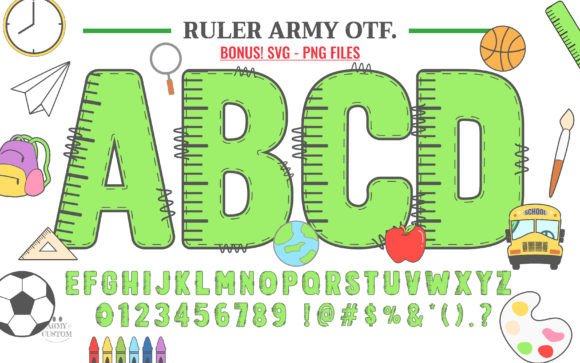
Ruler Army: The Bold Display Font for Creative Impact
When you're working on a project that needs to command attention, the typeface you choose sets the entire tone. Ruler Army is a premium display font designed to do exactly that. It brings a structured, authoritative, and modern presence to any design. Think of it as the strong foundation for a headline, a logo, or a piece of wall art that needs to be seen and remembered. Its clean, geometric letterforms are built with precision, offering a military-inspired discipline that translates into powerful visual branding.
This isn't just another bold font. Ruler Army has a distinct personality. It feels confident, organized, and slightly industrial, yet it maintains a surprising versatility. The uniformity in its strokes and the deliberate spacing give it a sense of order and reliability. For a designer or business owner, this means you're not just picking letters; you're selecting a voice for your brand that speaks of strength, clarity, and purpose. It's a creative font that works as hard as you do.
Where Ruler Army Truly Shines: Practical Applications
Understanding where a font excels is key to using it effectively. Ruler Army is fundamentally a display font, meaning it’s engineered for impact at larger sizes rather than for reading long paragraphs of text. Its strengths are best leveraged in projects where a few words need to carry significant weight.
- Branding and Logo Design: For startups, tech companies, fitness brands, or any service needing a modern, robust identity, Ruler Army provides an instant sense of establishment. It helps create a brand identity that feels both contemporary and dependable.
- Marketing and Social Media: In the fast-scrolling world of social media graphics, a bold serif font or a structured sans serif like Ruler Army can stop thumbs. Use it for key quotes, sale announcements, or video thumbnails to ensure your message is the first thing people notice.
- Editorial and Publishing: Magazine covers, report covers, and book titles benefit from its authoritative tone. It pairs exceptionally well with simpler body text fonts, creating a clear visual hierarchy that guides the reader's eye.
- Packaging and Product Design: On a shelf or in an online store, product names set in Ruler Army stand out. It communicates quality and intention, which is crucial for packaging design in competitive markets.
- Digital and Web Design: Used for website headers, hero section titles, or call-to-action buttons, it improves readability at a glance and reinforces a site's professional aesthetic.
- Crafts and Physical Projects: For the hobbyist or crafter, the black version's compatibility with Cricut and other cutting machines makes it perfect for creating impactful vinyl decals, custom apparel, and detailed scrapbooking elements. Imagine bold monograms or inspirational phrases for wall art.
Making the Most of Ruler Army: A Designer's Perspective
Choosing a font is a strategic decision. Here’s how to integrate Ruler Army effectively into your workflow and ensure it elevates your project rather than overwhelming it.
Evaluate the Project's Voice
First, ask if the project's personality aligns with Ruler Army's. Is your goal to feel innovative, sturdy, and direct? If you're designing a playful children's party invitation, this might not be the right fit. But for a corporate brochure, a fitness blog banner, or a tech product launch, it’s an excellent candidate. It brings a level of professionalism and recognition that can strengthen brand perception.
Master the Art of Font Pairing
No font is an island. Ruler Army's strong character means it pairs best with fonts that complement without competing. For a harmonious and readable design, consider these pairings:
- With a Clean Sans Serif: Pairing Ruler Army with a neutral, open sans serif font for body text creates a perfect balance. The display font grabs attention for headlines, while the sans serif ensures comfortable reading for paragraphs.
- With a Simple Script or Handwritten Font: For a touch of contrast and personality in projects like blog backgrounds or party invitations, you can use a subtle script font or handwritten font for accents or subheadlines. Let Ruler Army dominate the main title.
Always test your pairings in context. Create a mock-up of your actual design—a social media post, a website header, a product label—to see how the fonts interact visually and ensure the font pairing feels cohesive.
Ultimately, Ruler Army is a tool for making a statement. It’s for the designer who needs their headline to feel authoritative, the entrepreneur whose brand needs to exude confidence, and the crafter who wants their handmade items to have a polished, modern edge. By understanding its personality and applying it with intention, you can leverage this typeface to create work that doesn't just look good—it communicates with clarity and force.